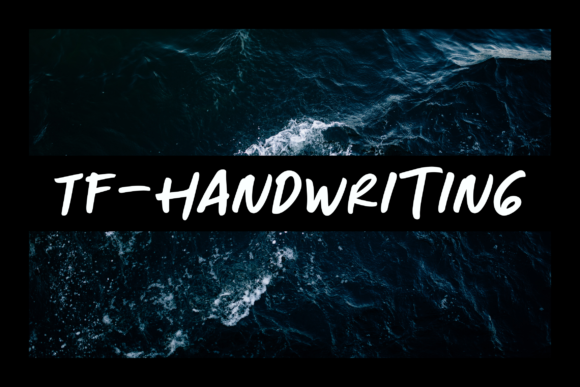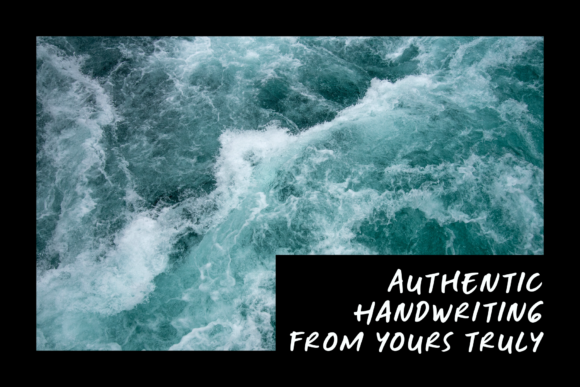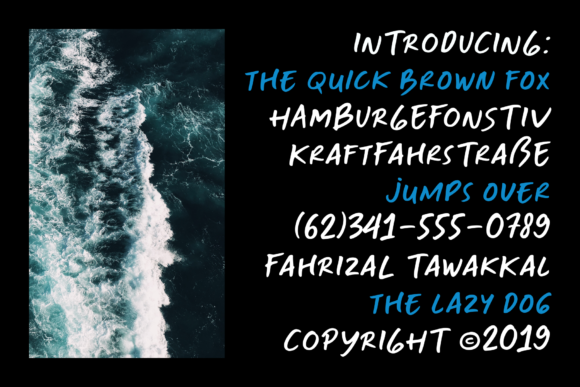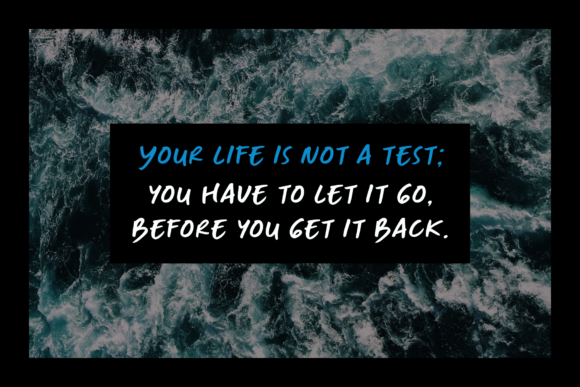
TF Handwriting Font
About TF Handwriting Font
TF Handwriting is a font taken from real-life handwriting by a ballpoint pen, making it the ideal font for adding that handwritten and personal touch to any creative idea.